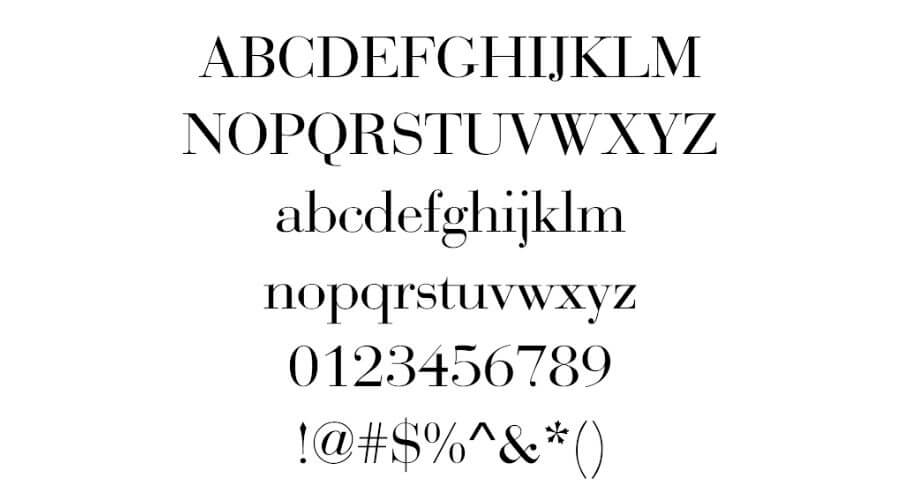
Bodoni Serif Font
Bodoni Serif Font is a lovely serif font that we’re discussing today. The font Bodoni is a serif font. Italian typeface designer Giambattista Bodoni created this font. The font was created in the late 1800s, and numerous versions have been created since then, including LTC Bodoni 175, Bauer Bodoni, Berthold Bodoni Antiqua, and others. The concept for this font was inspired by British designer John Baskerville, who created a number of renowned types during his career.
The font’s designer, Giambattista Bodoni, was a major lover of John Baskerville’s work. He also conducted an extensive investigation into the works of other French designers. Despite drawing inspiration from a variety of designers, he developed his own style, which became the most important factor in his success. There are a few digital variations of the font with thick and thin strokes. Bodoni is considered one of the best typefaces ever created by Italian designer Massimo Vignelli. The font can be used excessively in printed documents and exhibitions. The font comes with numerous weights and styles.
This font can be used to its full potential in printing projects. It has a consistent design that makes it elegant to use in any design.   One of the variations of this font, Bodoni Old Face, was created specifically for text to make it easier to read. Additionally, the typeface can be used in logos, graphics, headings, titles, websites, and other required locations. Poster Bodoni is one of the versions that was created just for posters.